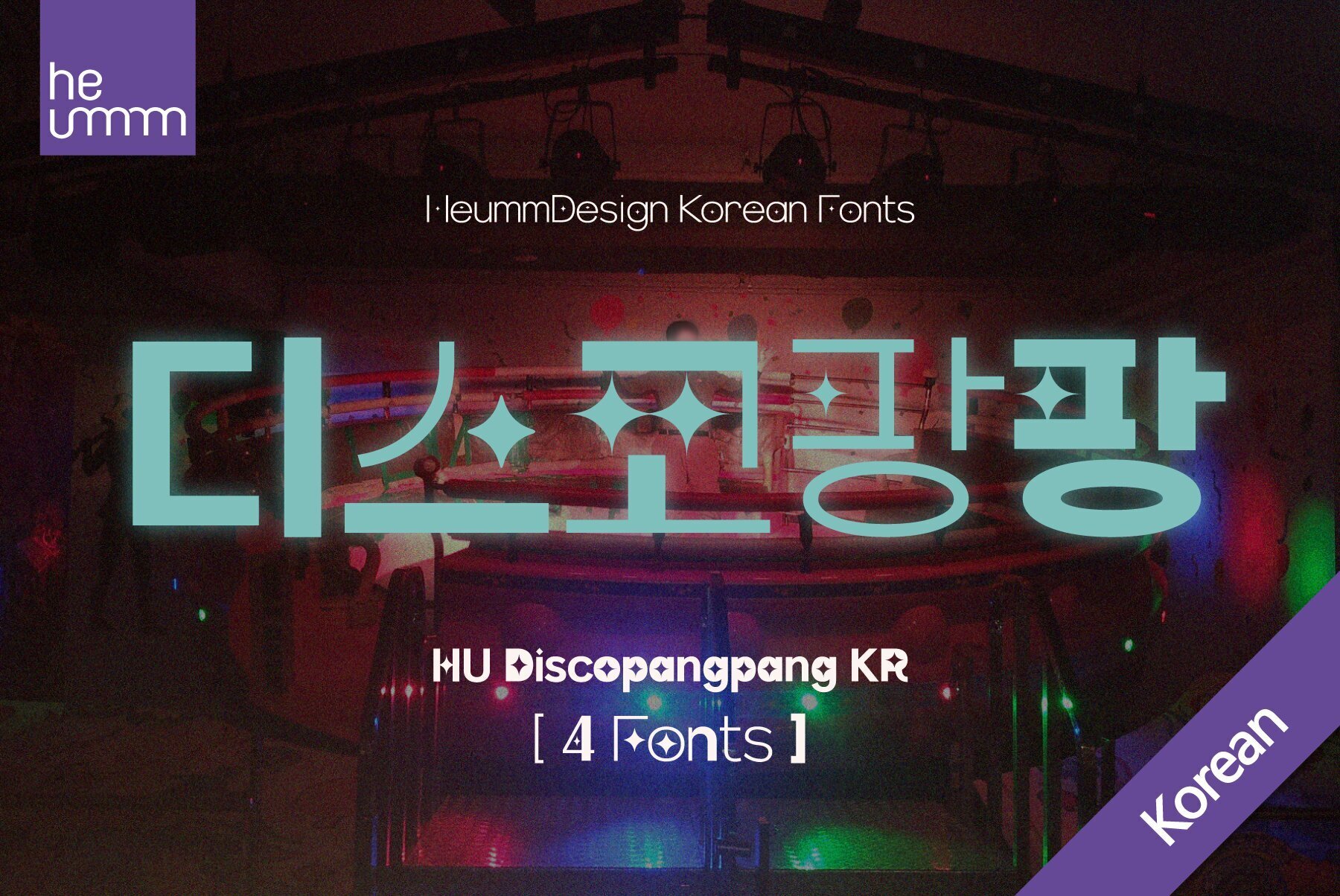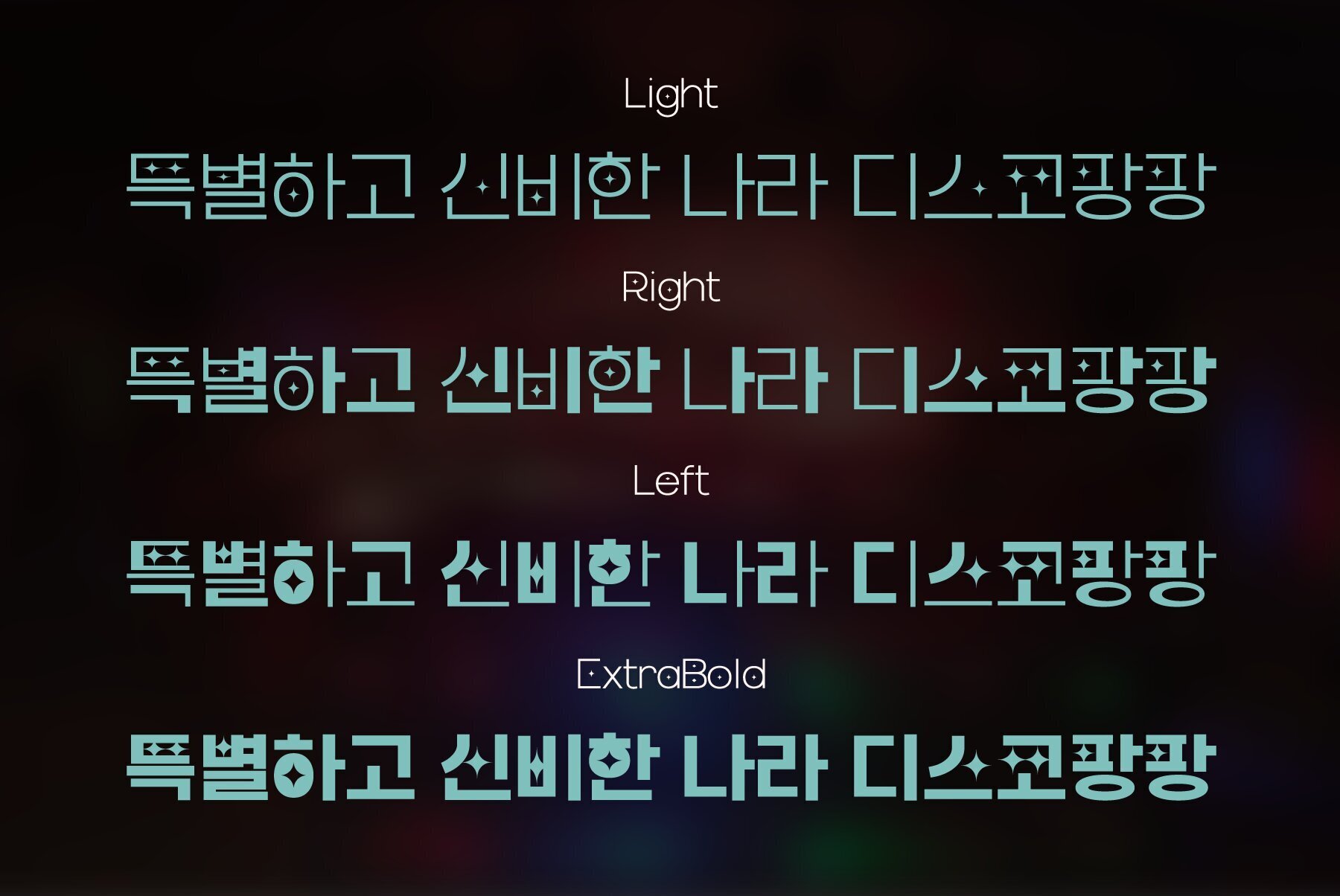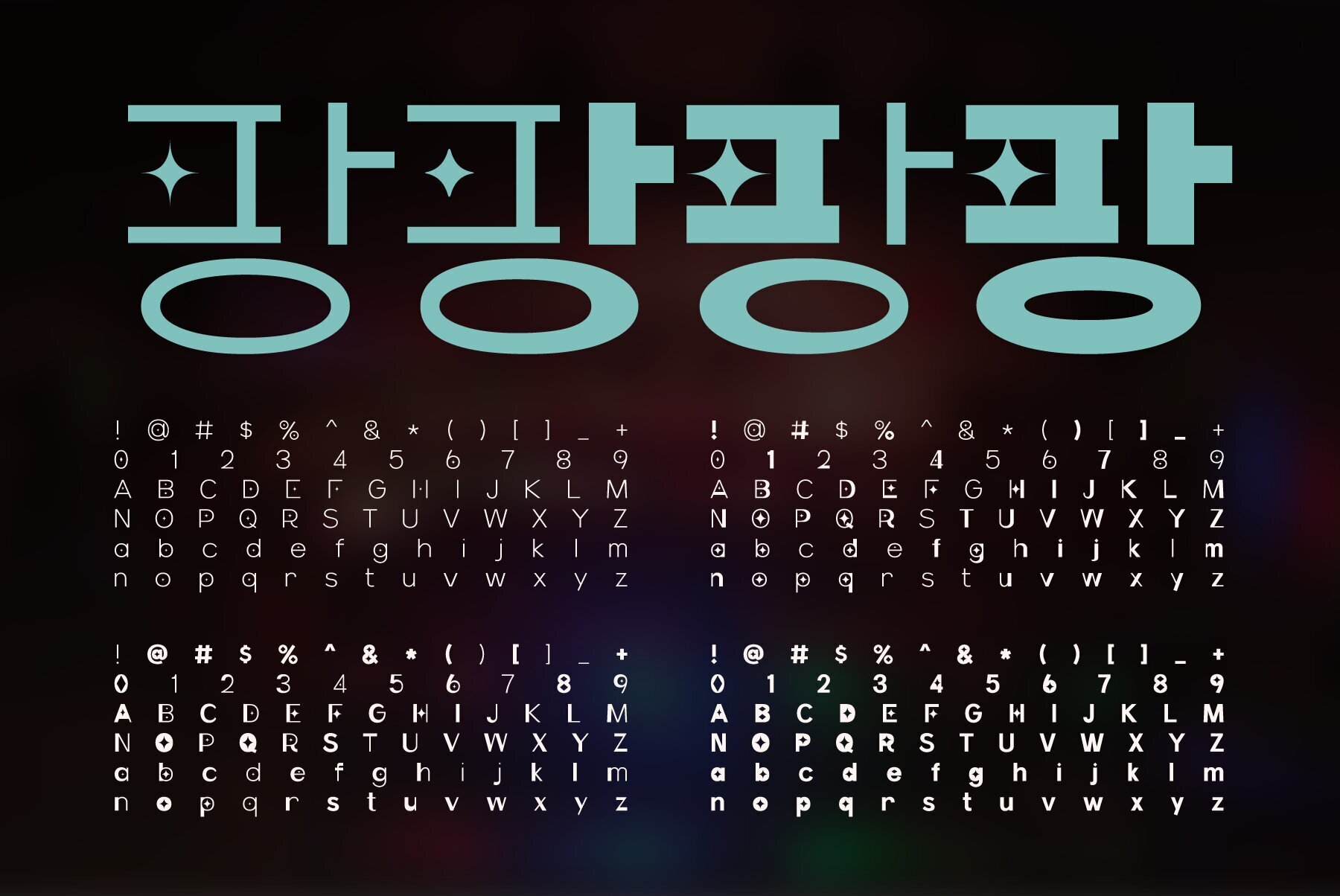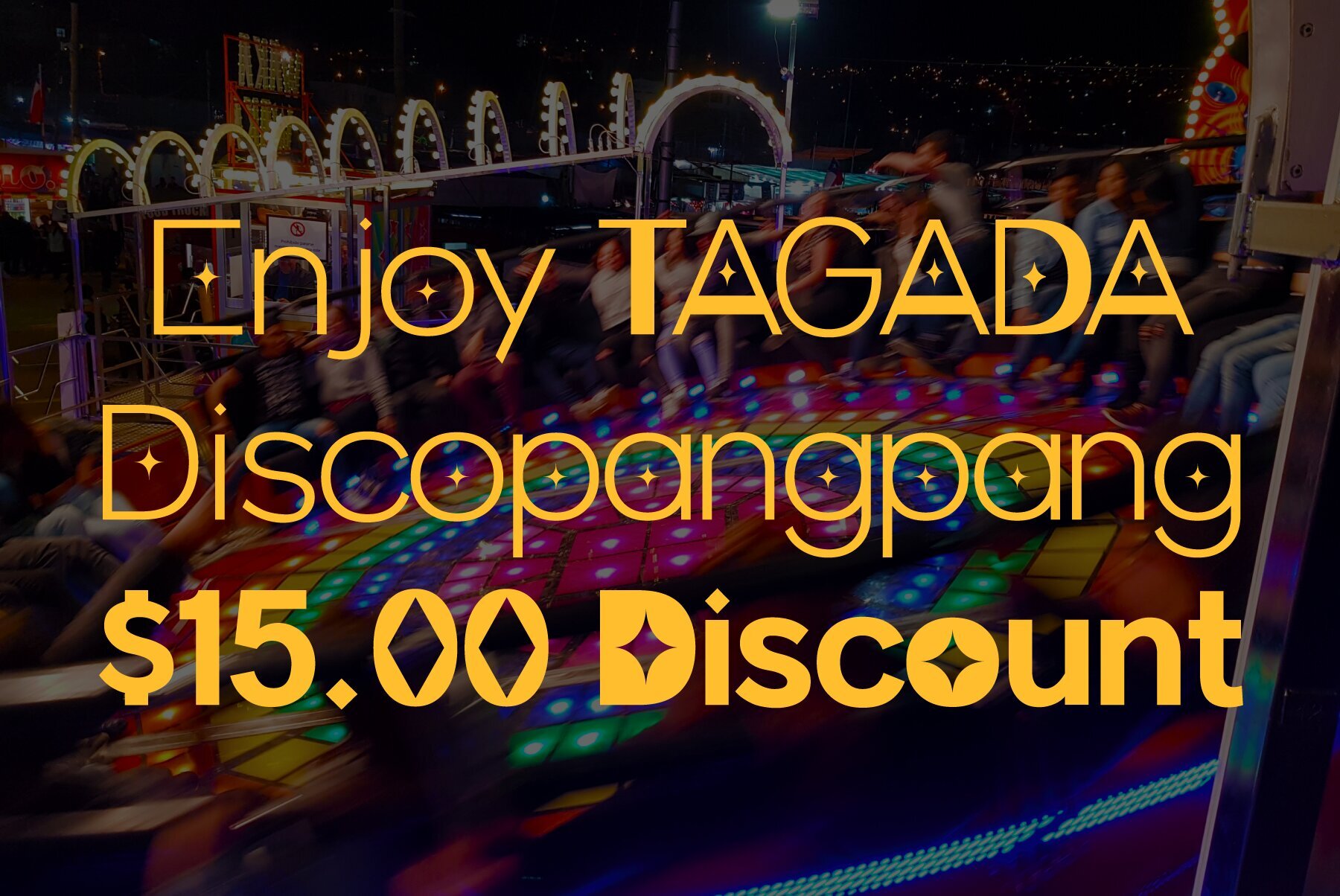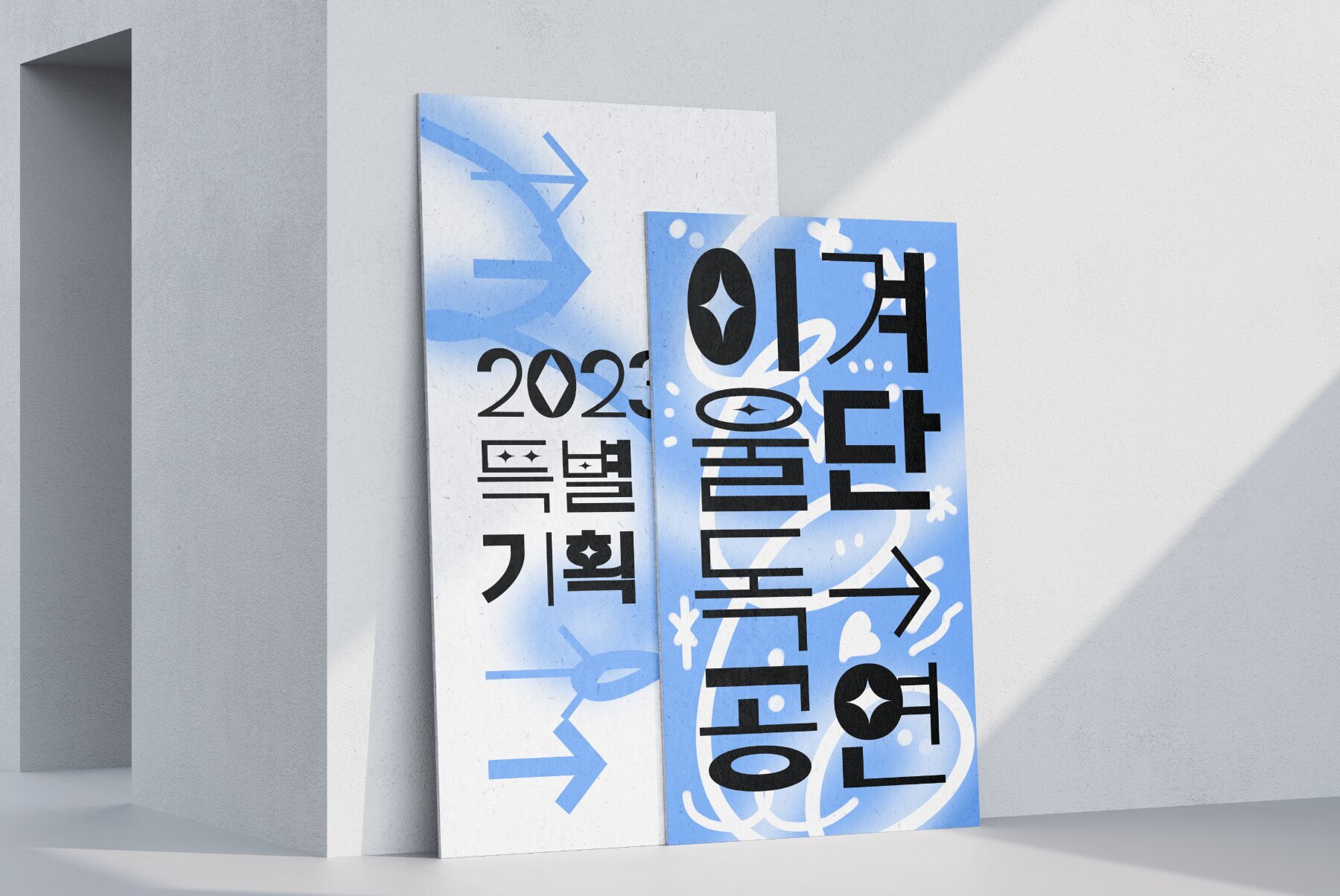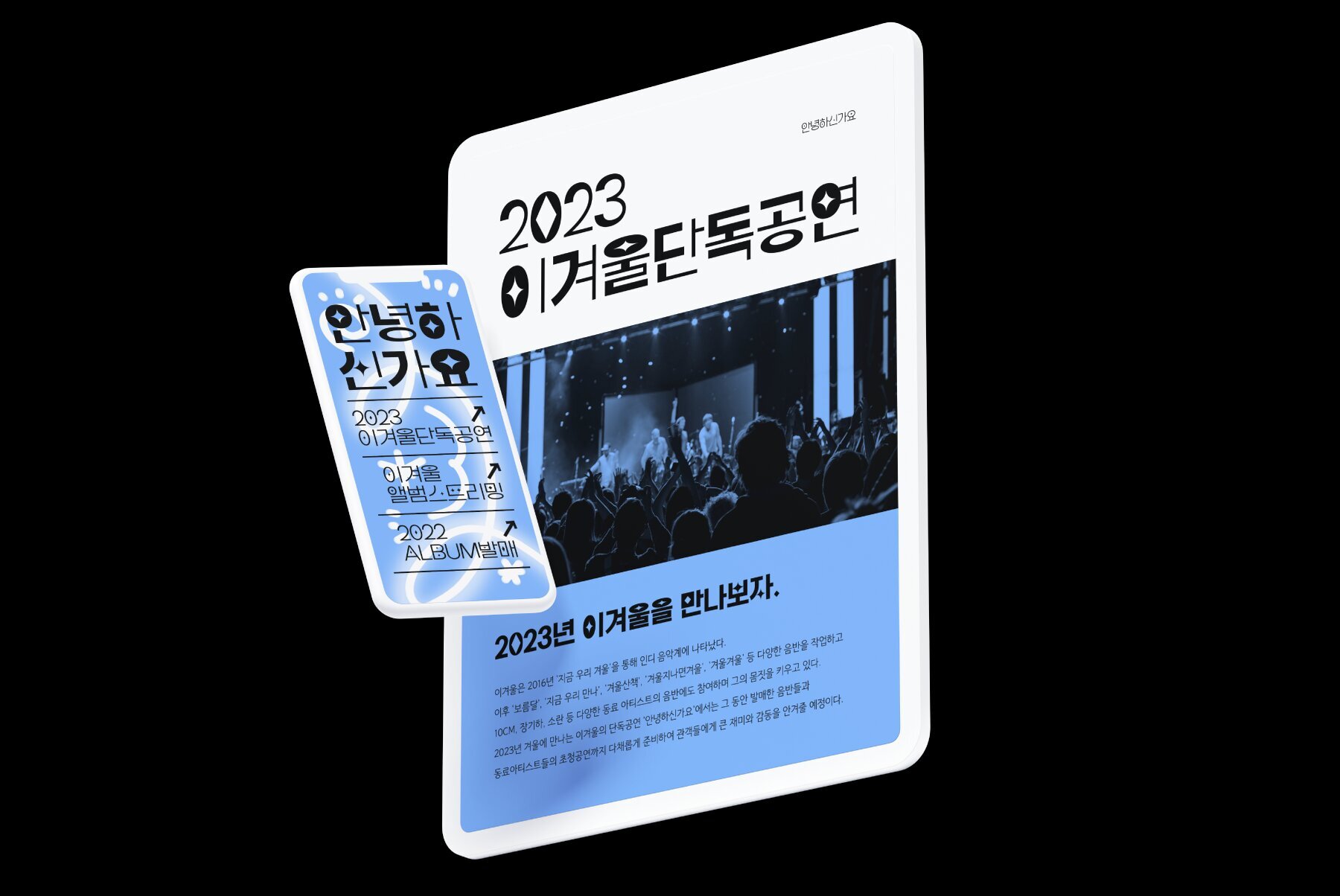
HU Discopangpang KR Font
HUDiscopangpang Light
HUDiscopangpang Extra Bold
HUDiscopangpang Left
HUDiscopangpang Right
Bring a touch of character to your design projects with the HU Discopangpang KR typeface. Exclusively created by the visionary designer, Heummdesign, this typeface offers a unique and playful twist to your ordinary designs. Drawing inspiration from the dynamism and excitement of Tagada rides or "Disco Pang Pang", as they are fondly called in Korea, the bounce and rhythm of this thrilling amusement ride is cleverly encapsulated in this distinctive font. The HU Discopangpang KR typeface comes in two weights - Light and Extrabold. Both styles though unlike conventional typefaces, are designed to resemble the thickness of normal typefaces offering a comfortable yet diverse visual experience. Serving as a perfect fit for graphic designers and marketing firms, the typeface transcends beyond mere aesthetics and communicates your ideas with flair and originality. Discover a profusion of creative possibilities with the HU Discopangpang KR typeface and add a memorable layer to your designs.Immerse in Creativity with HU Discopangpang KR Typeface